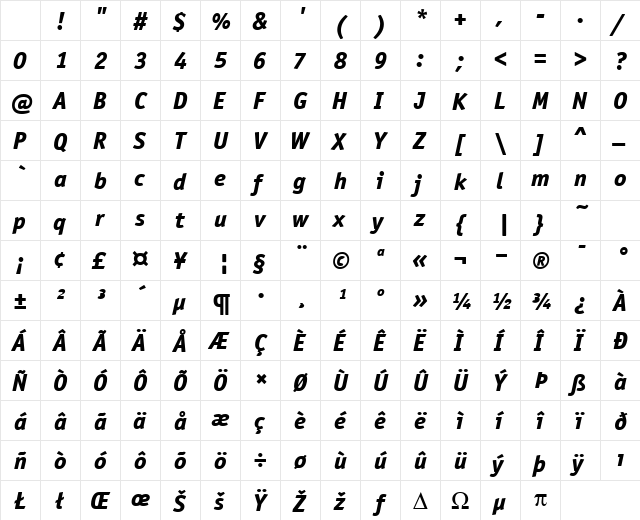
OfficinaSanITCTT ExtraBoldIta Free Font
OfficinaSanITCTT ExtraBoldIta
Style: ExtraBoldIta
Foundry: International Typeface Corporation
Designer: Erik Spiekermann/Ole Schaefer
Design Context for OfficinaSanITCTT
OfficinaSanITCTT is a composed and adaptable typeface that performs quietly and consistently across a wide range of design contexts. Its bold stroke weight gives it real presence on the page.